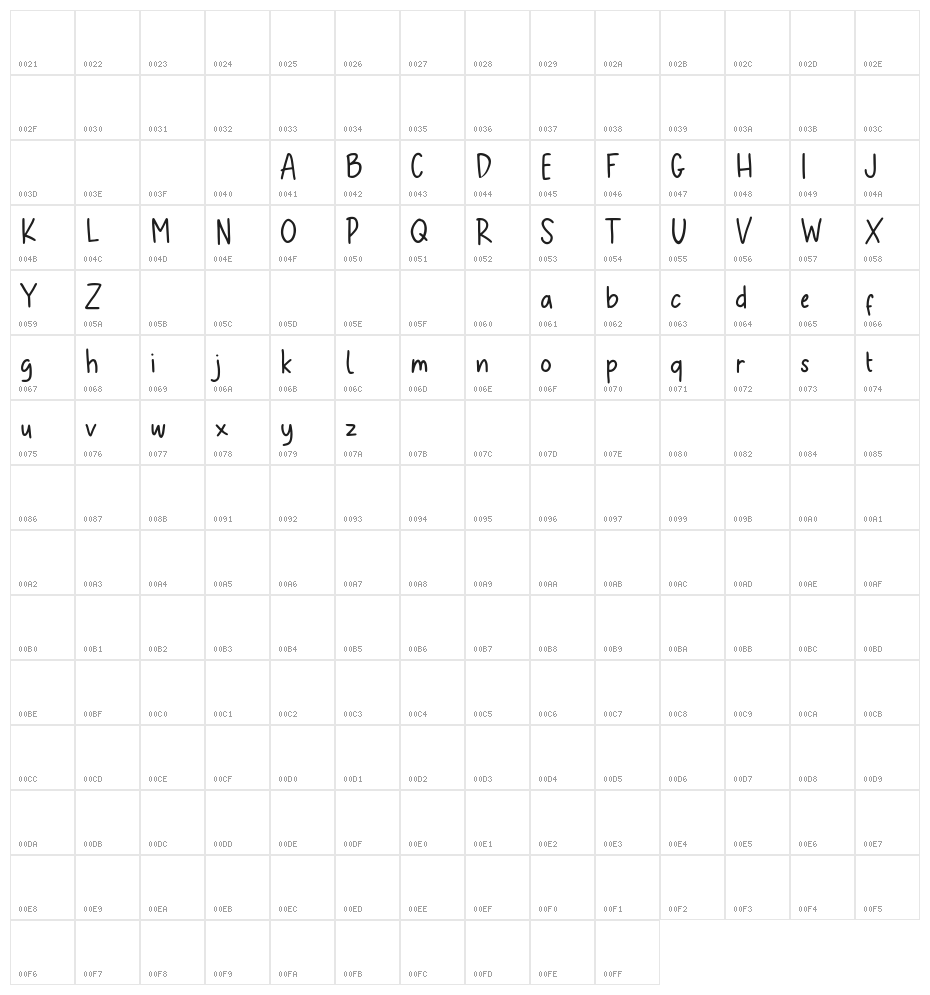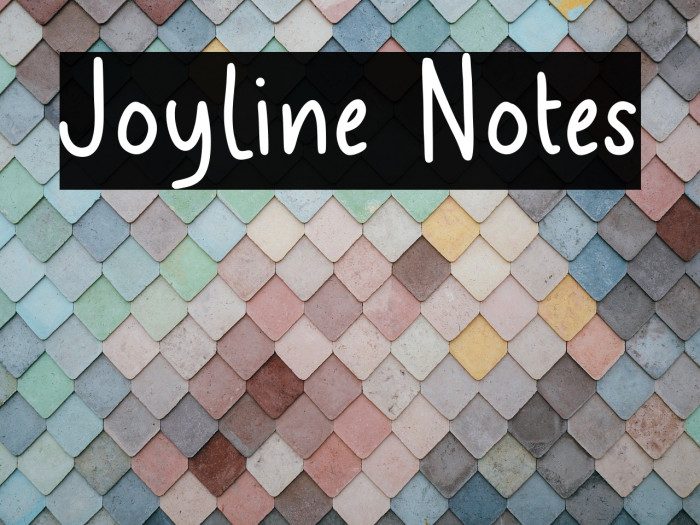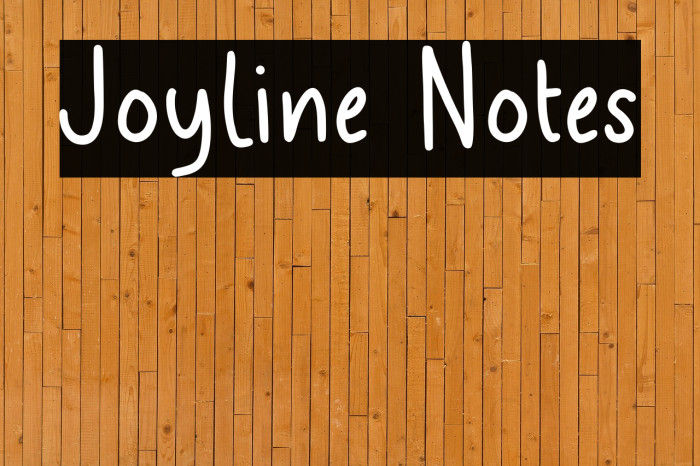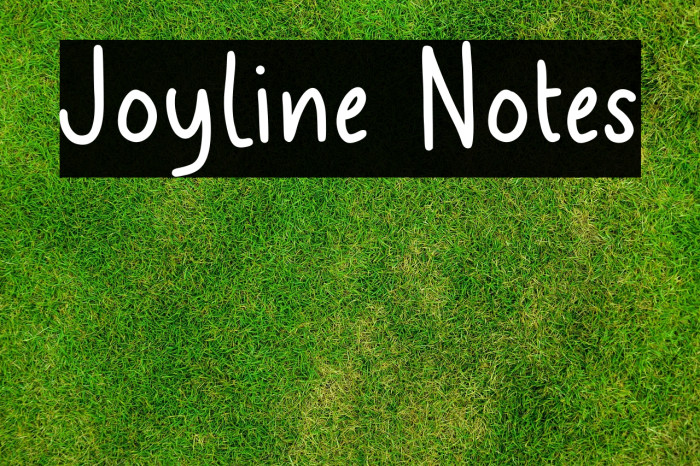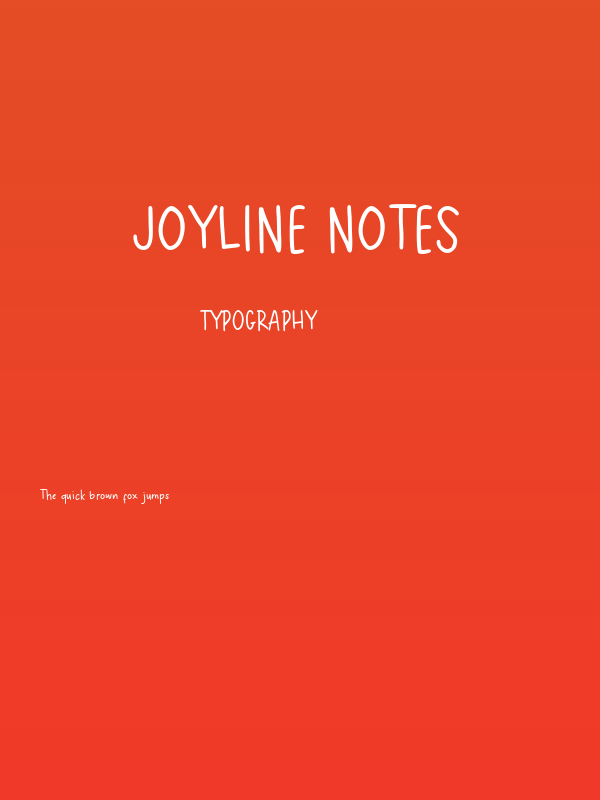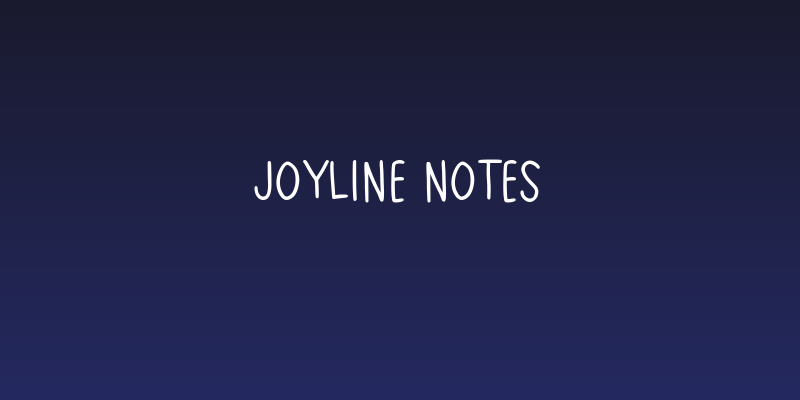
Joyline Notes Font
Joyline Notes Description
This font features a playful and casual handwritten style, characterized by its smooth curves and slightly irregular letterforms, which give it a friendly and approachable appearance. The uppercase and lowercase letters maintain a consistent flow, with rounded edges that enhance its informal aesthetic. The numerals and special characters are crafted to match the whimsical nature of the alphabet, making it suitable for creative and lighthearted projects. Its simplicity and charm make it versatile for various design applications.
Overall StyleCasual
Use CaseLogos, Headlines, Informal Text
Proposed ProjectsIdeal for greeting cards, children's books, casual branding, and social media graphics.